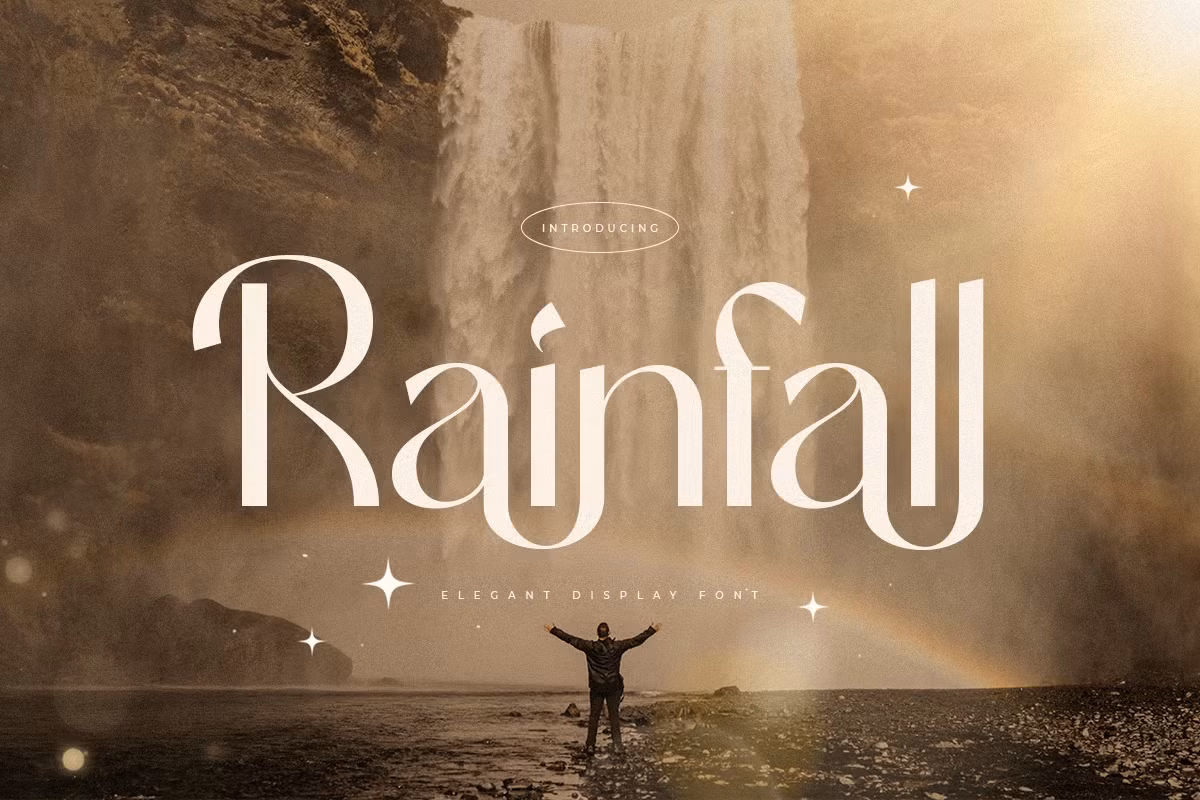
Rainfall - Elegant Display Font Free Download
Rainfall – Elegant Display Font Free Download is a sophisticated typeface that combines graceful curves with modern display aesthetics—perfect for designs that need a touch of refinement. Please note, you are required to purchase this font for commercial use. It is available for free download for testing and personal projects only.
With its delicate serifs, stylish contrast, and luxurious flow, Rainfall is ideal for branding, wedding invitations, editorial layouts, packaging, and upscale social media graphics. It captures attention with poise and polish, making every headline or logo feel effortlessly high-end.